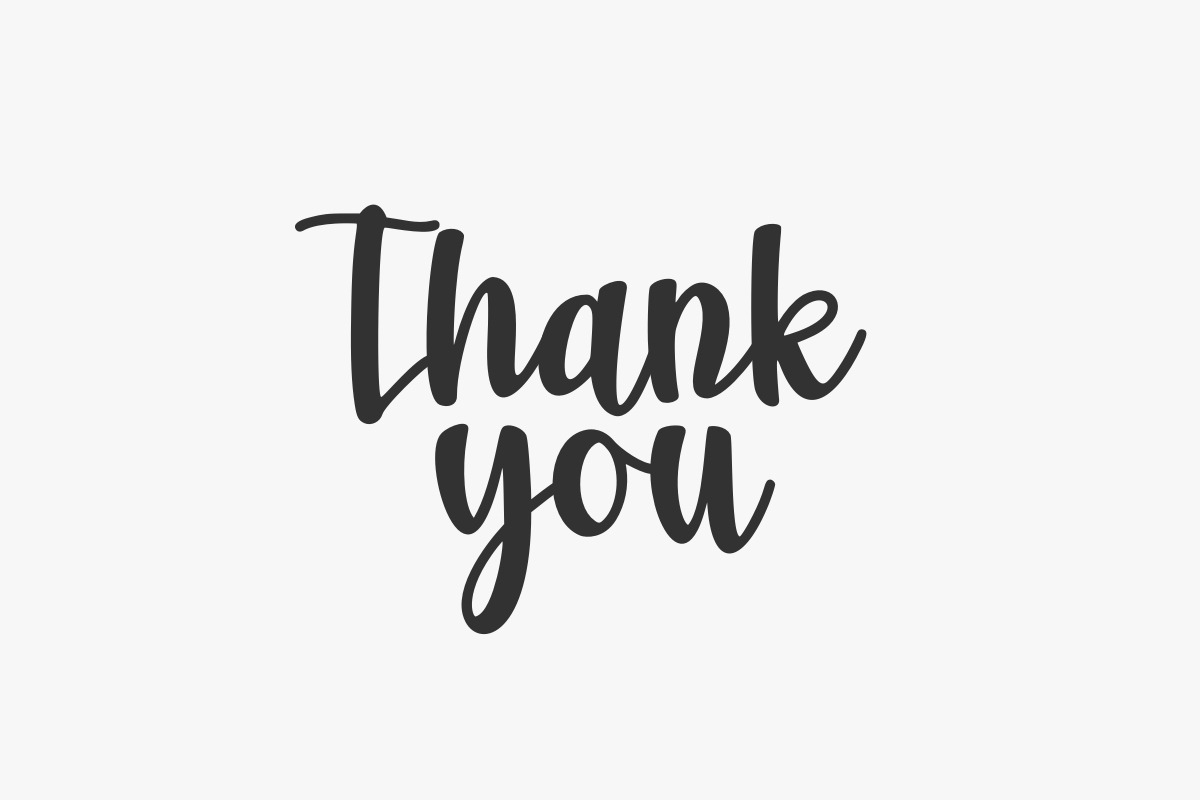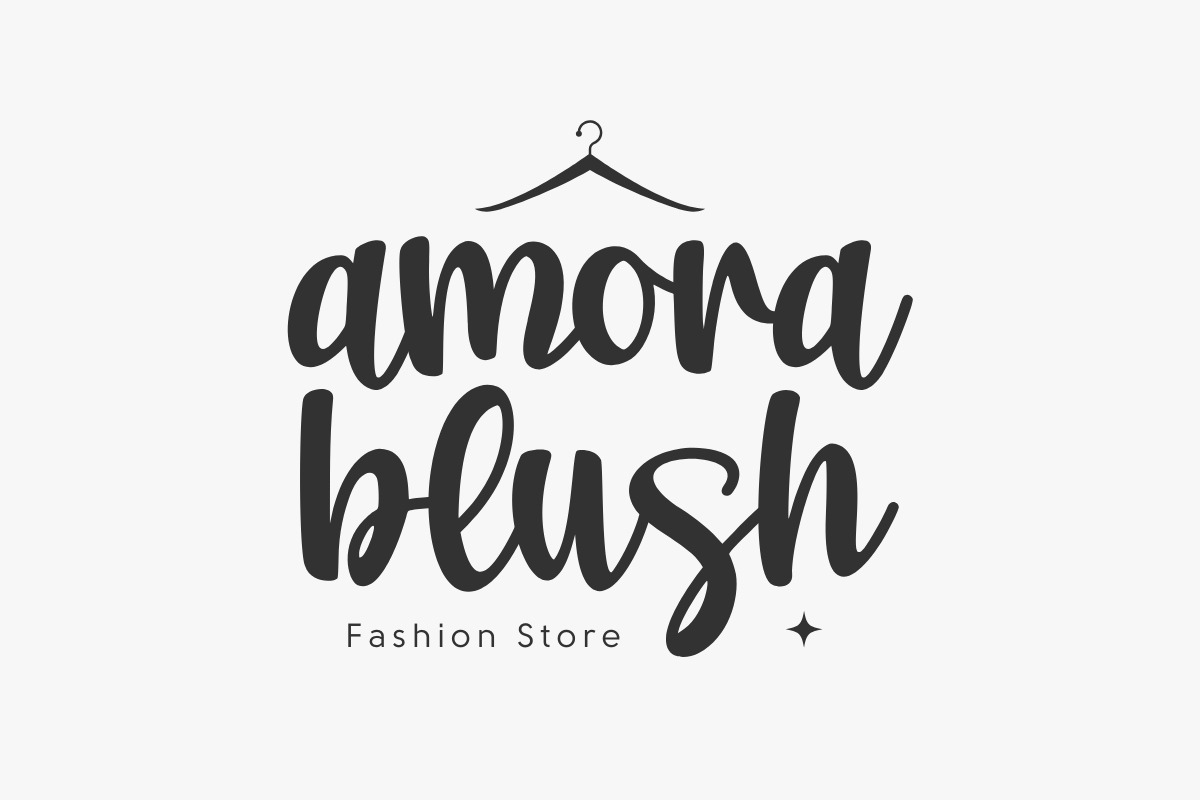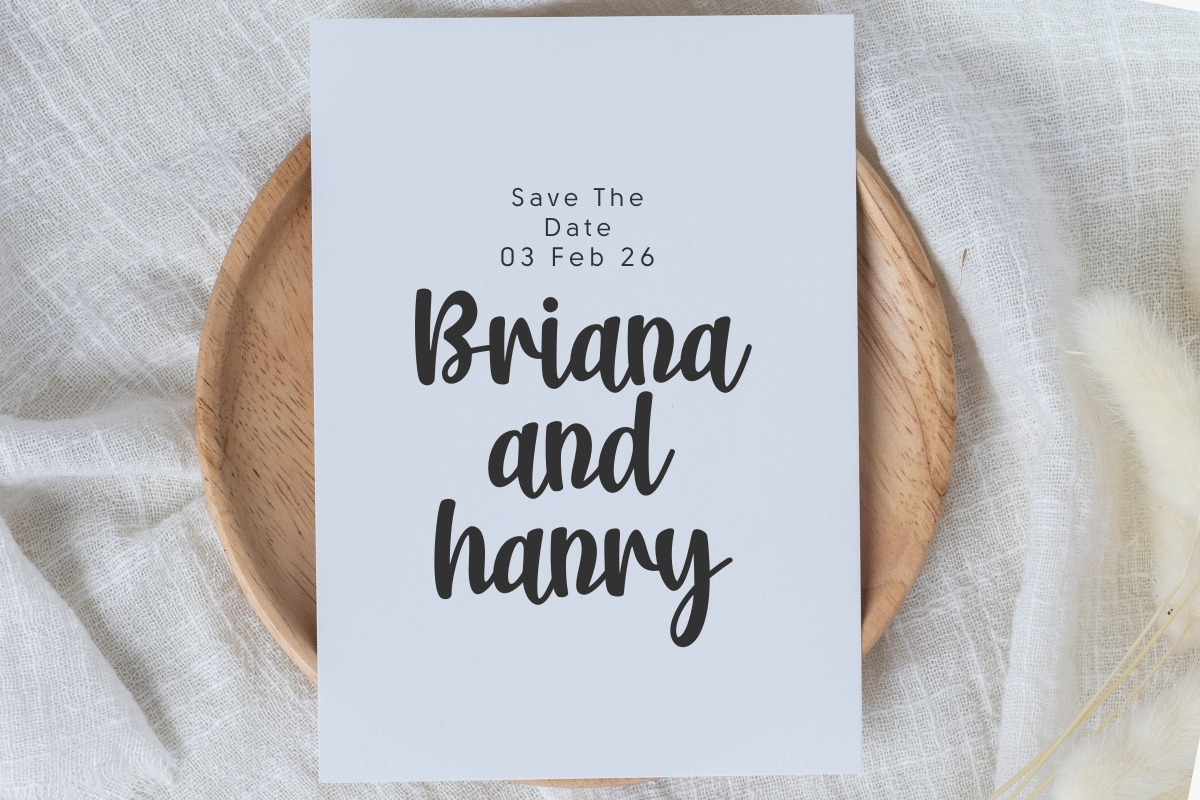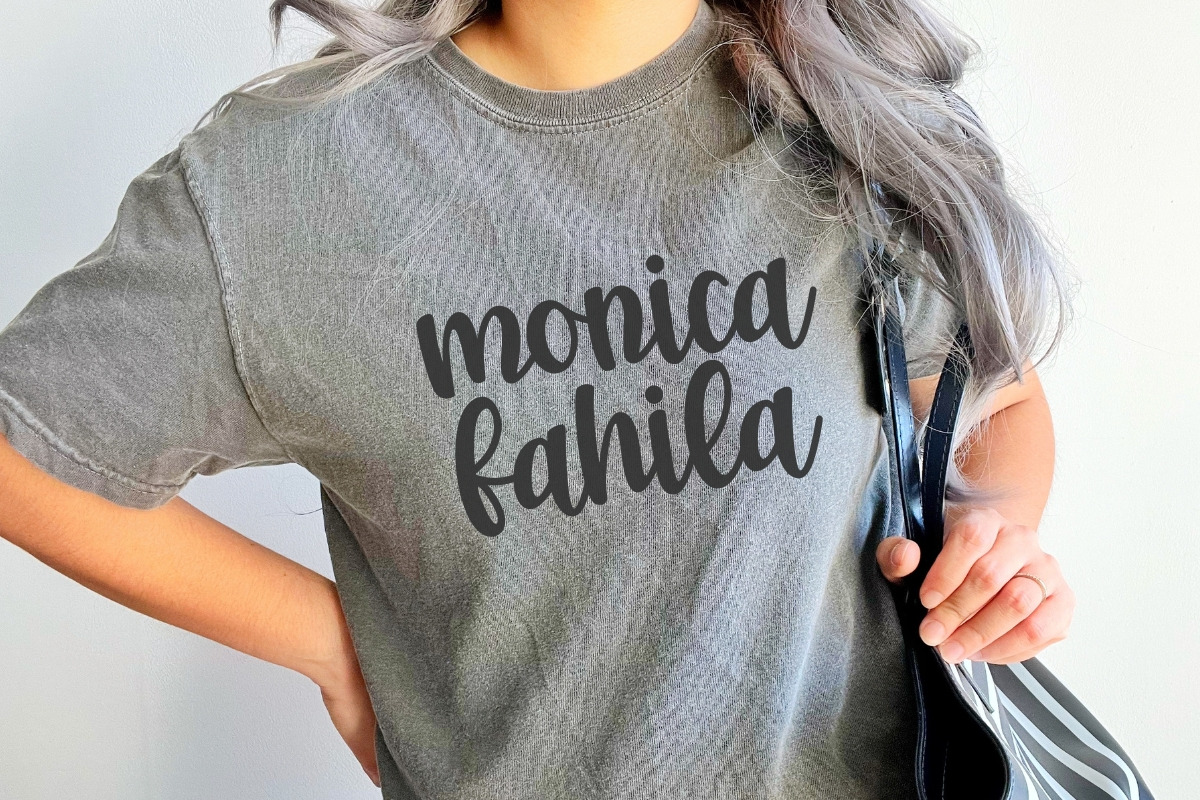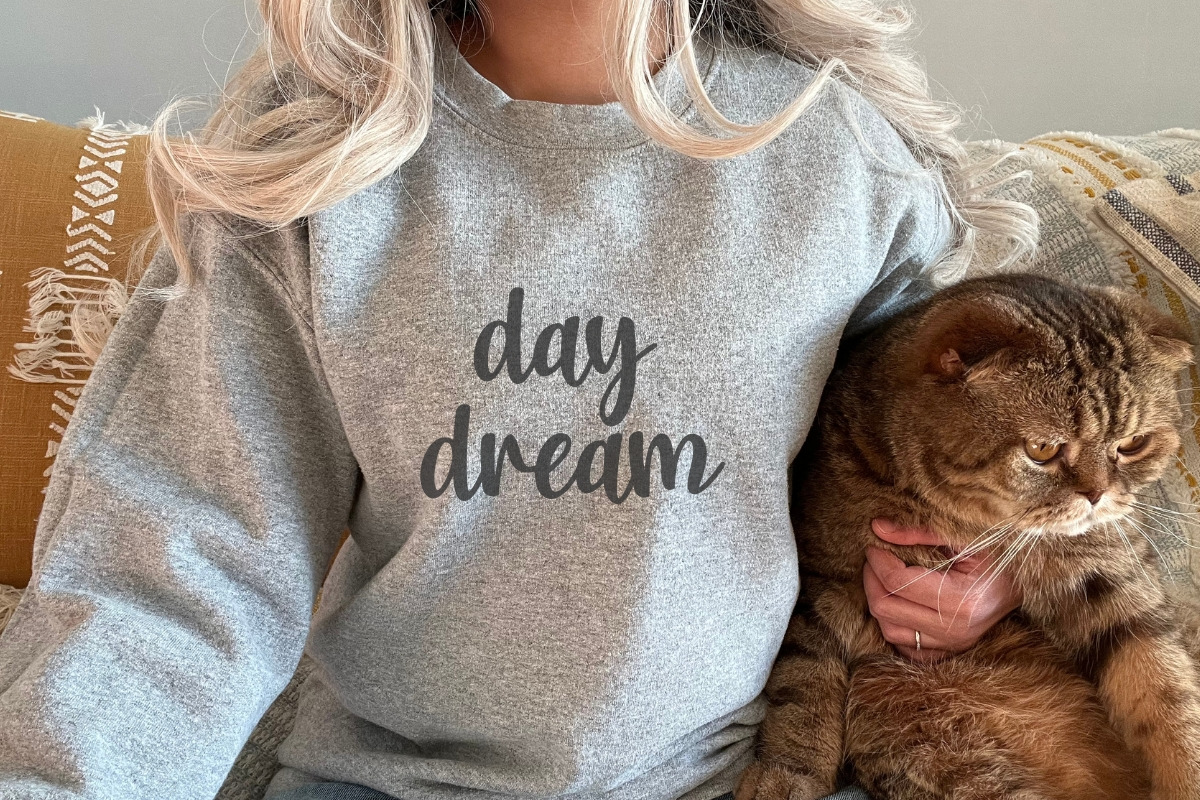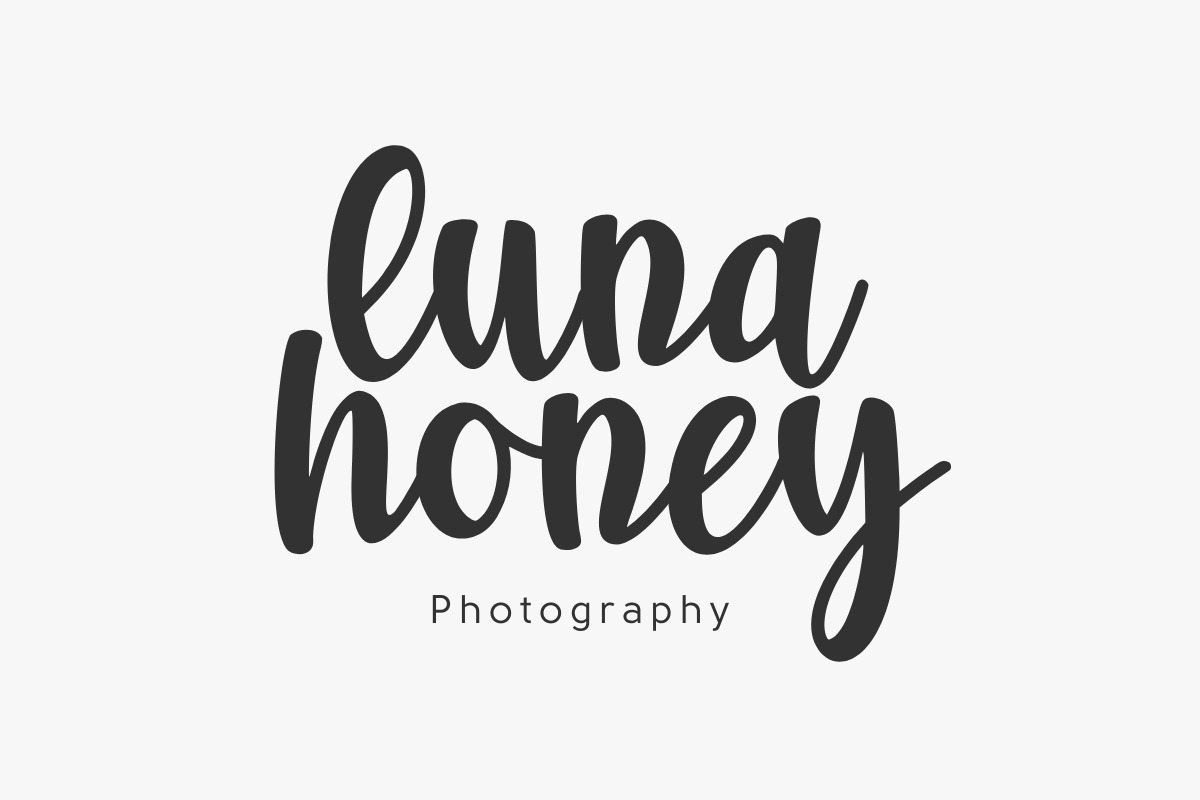
Aurora - Modern Handwritten Script
Aurora is an elegant and high-impact modern handwritten script font designed to bring a touch of sophisticated personal charm to your creative projects. This versatile typeface features smooth, flowing strokes and a natural hand-lettered aesthetic, making it an ideal choice for luxury branding, wedding invitations, chic logos, and romantic social media graphics. Its graceful and feminine silhouette ensures it stands out as a powerful calligraphy font for headlines and stationery, perfect for designers looking for a balance of contemporary style and timeless elegance. Elevate your designs with the beautiful and effortless spirit of Aurora!